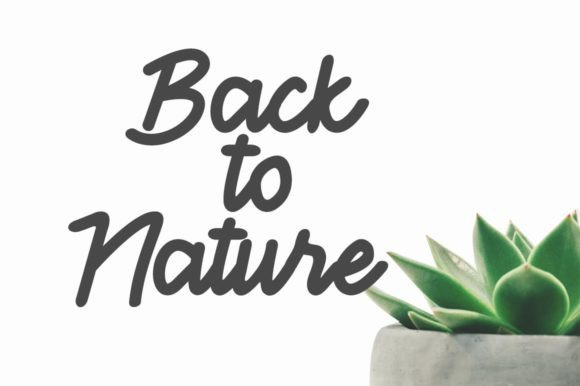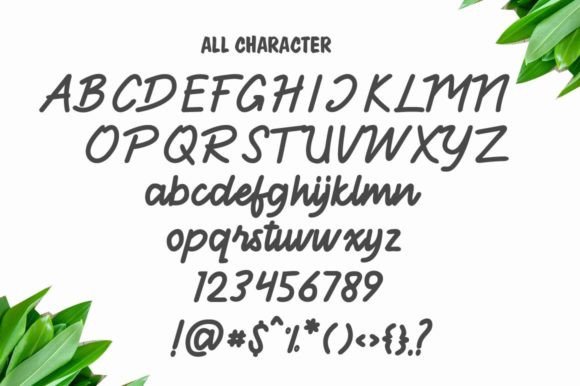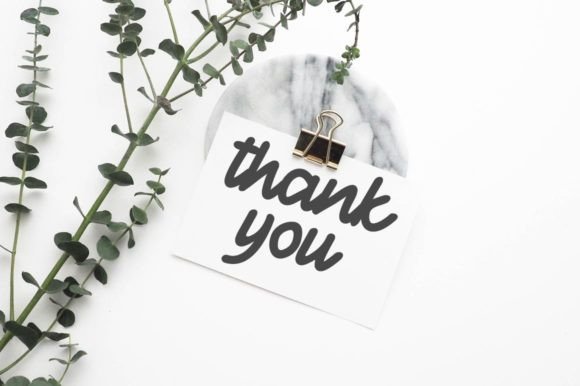
Cemara Font: Elevate Your Designs with a Bold and Elegant Script
In the world of typography, a font can make or break a design. For designers and crafters looking for a unique and versatile script font, Cemara Font is an excellent choice. This simple yet bold script font is perfect for a wide range of design projects, from logos and quotes to apparel designs, wedding invitations, and more.
What is Cemara Font?
Cemara Font is a modern script font that exudes elegance and sophistication. Its bold style makes it perfect for designs that require a statement piece. The font is designed to be highly legible, making it suitable for use in various design projects, from digital to print.
Key Features of Cemara Font
- Simple yet Bold Style: Cemara Font boasts a simple yet bold style that makes it perfect for designs that require a statement piece.
- Highly Legible: The font is designed to be highly legible, making it suitable for use in various design projects, from digital to print.
- Alternate Characters: Cemara Font comes with alternate characters, allowing designers to create their own customized lettering and add a personal touch to their designs.
- Versatile: The font is versatile and can be used in a wide range of design projects, from logos and quotes to apparel designs, wedding invitations, and more.
Uses of Cemara Font
Cemara Font is a versatile font that can be used in various design projects. Here are some of the ways designers and crafters can use this font:
- Logos: Cemara Font is perfect for creating logos that require a bold and elegant script.
- Quotes: The font is suitable for creating inspirational quotes, posters, and social media graphics.
- Apparel Designs: Cemara Font can be used to create stunning apparel designs, from t-shirts to hoodies.
- Wedding Invitations: The font is perfect for creating elegant wedding invitations, save-the-date cards, and other wedding-related designs.
- Branding: Cemara Font can be used in branding projects, such as business cards, brochures, and letterheads.
Tips for Using Cemara Font
Here are some tips for using Cemara Font in your designs:
- Experiment with Alternate Characters: Take advantage of the alternate characters to create unique and customized lettering.
- Pair with Other Fonts: Cemara Font can be paired with other fonts to create a stunning contrast and add visual interest to your designs.
- Use in Combination with Images: The font can be used in combination with images to create stunning graphics and posters.
- Adjust Font Size and Color: Experiment with different font sizes and colors to create a design that pops.
Cemara Font is a versatile and elegant script font that is perfect for designers and crafters looking for a bold and sophisticated font. With its simple yet bold style, alternate characters, and high legibility, this font is suitable for a wide range of design projects. Whether you’re creating logos, quotes, apparel designs, or wedding invitations, Cemara Font is an excellent choice. So why not give it a try and elevate your designs to the next level?